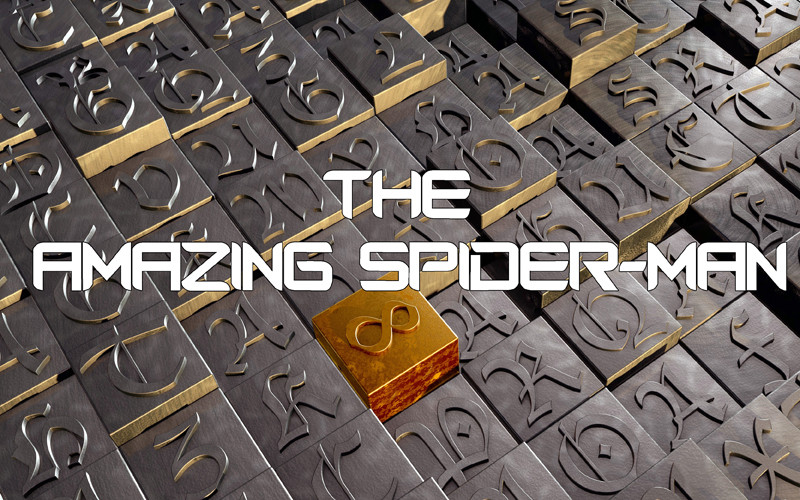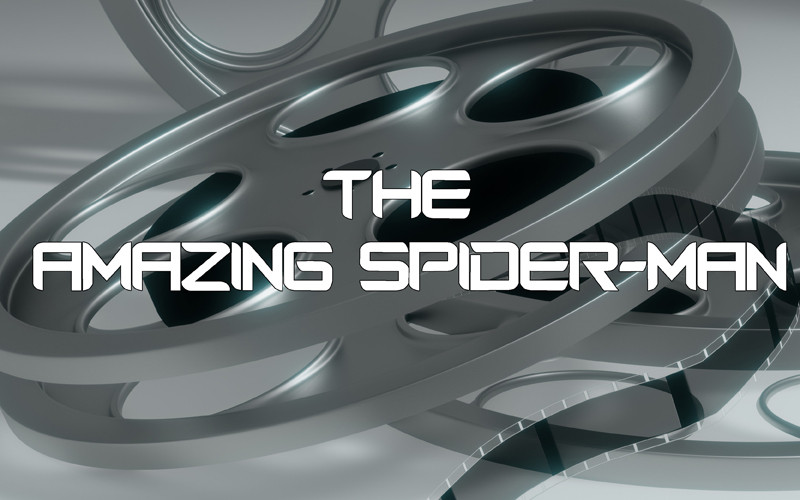
Directly from the film directed by MARC WEBB and starring ANDREW GARFIELD, the new font for all fans of the film.
Direttamente dal film diretto da MARC WEBB e interpretato da ANDREW GARFIELD, il font inedito per tutti gli estimatori del film.
Directly from the film directed by MARC WEBB and starring ANDREW GARFIELD, the new font for all fans of the film.
Direttamente dal film diretto da MARC WEBB e interpretato da ANDREW GARFIELD, il font inedito per tutti gli estimatori del film.